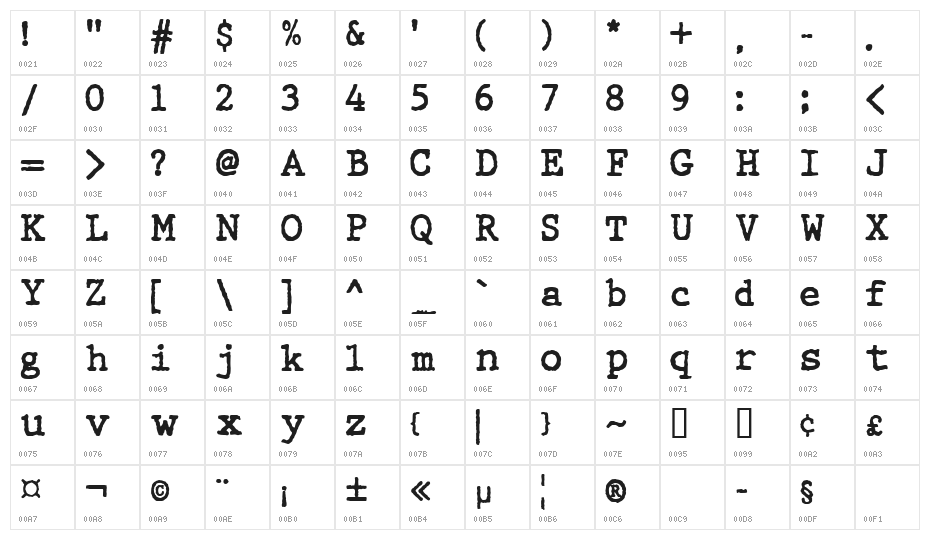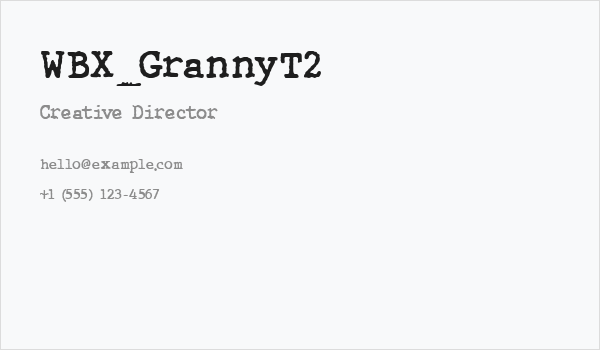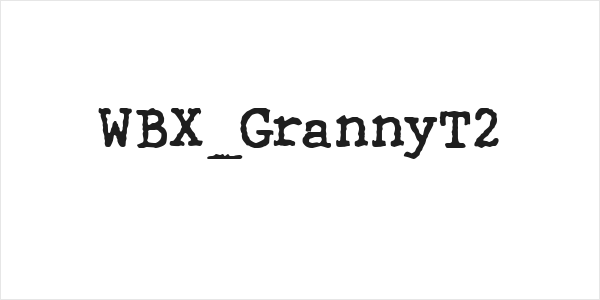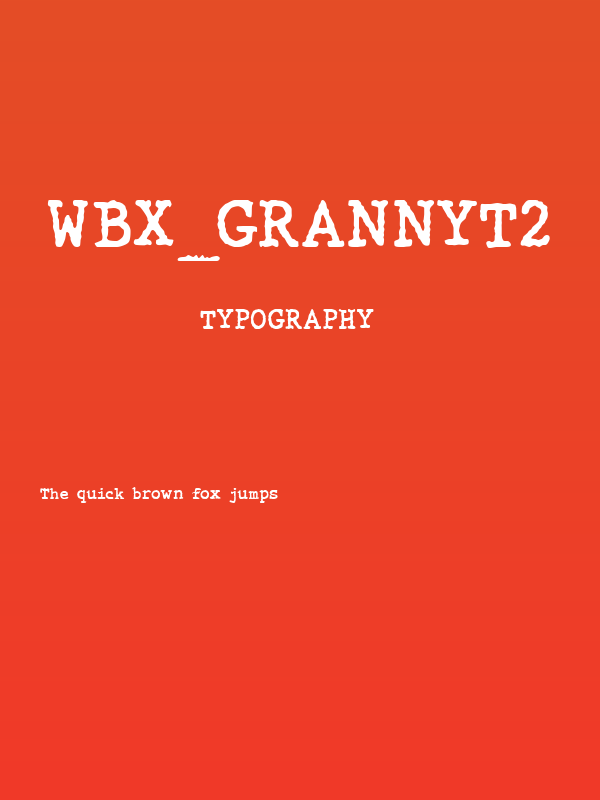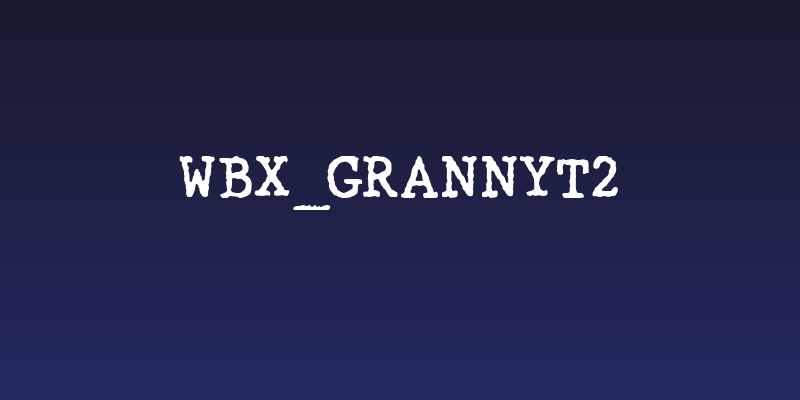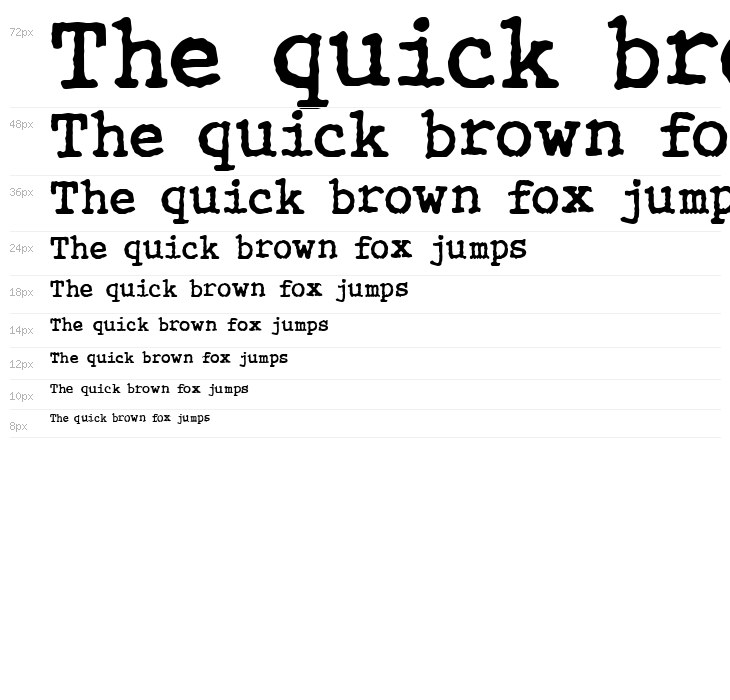
WBX_GrannyT2 Font
WBX_GrannyT2 Description
This font exhibits a distinct, vintage typewriter style with a textured, slightly distressed appearance. The characters are bold and have a rough, uneven edge that gives them a hand-stamped look. The uppercase and lowercase letters maintain a consistent style, with rounded edges and a uniform thickness throughout. Numbers and special characters follow the same aesthetic, ensuring a cohesive look across all text. The font's unique character makes it ideal for projects that require a retro or nostalgic feel, while its boldness ensures readability and impact.
| Proposed Projects | Ideal for retro-themed designs, vintage posters, book covers, and branding that requires a nostalgic touch. |